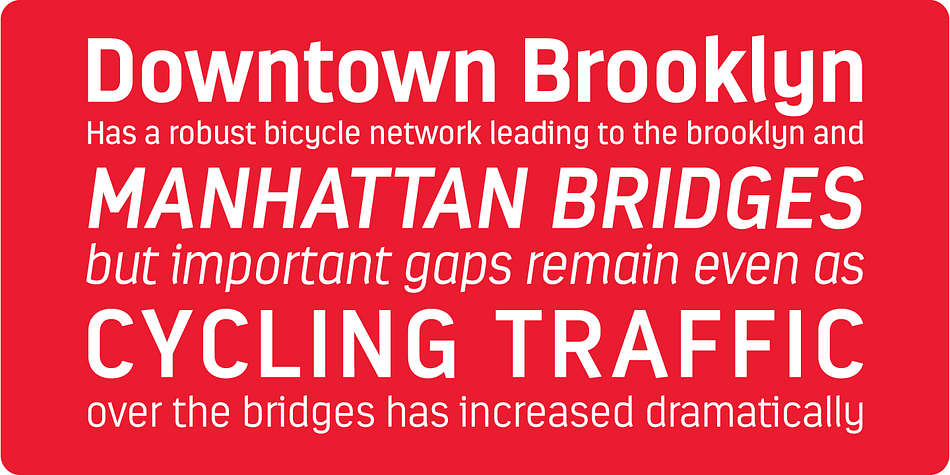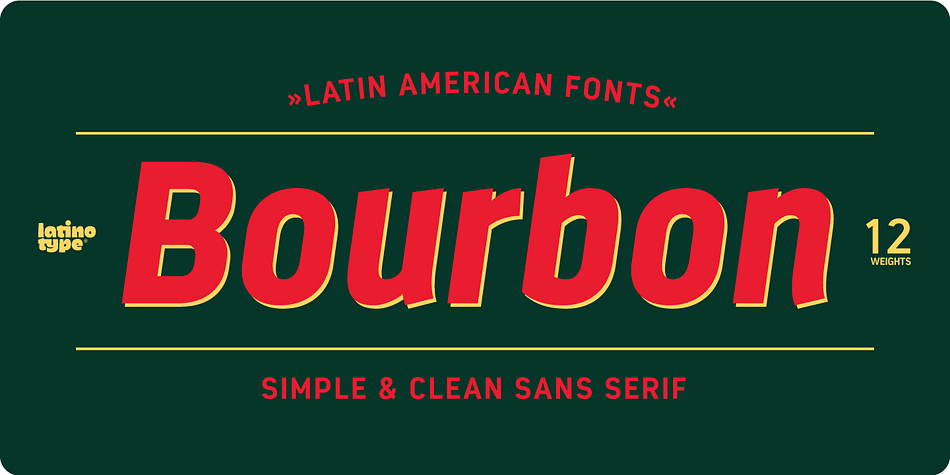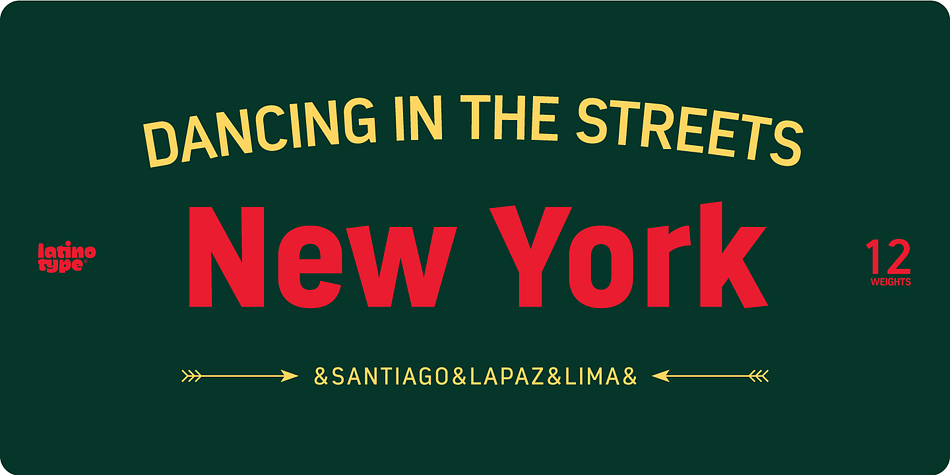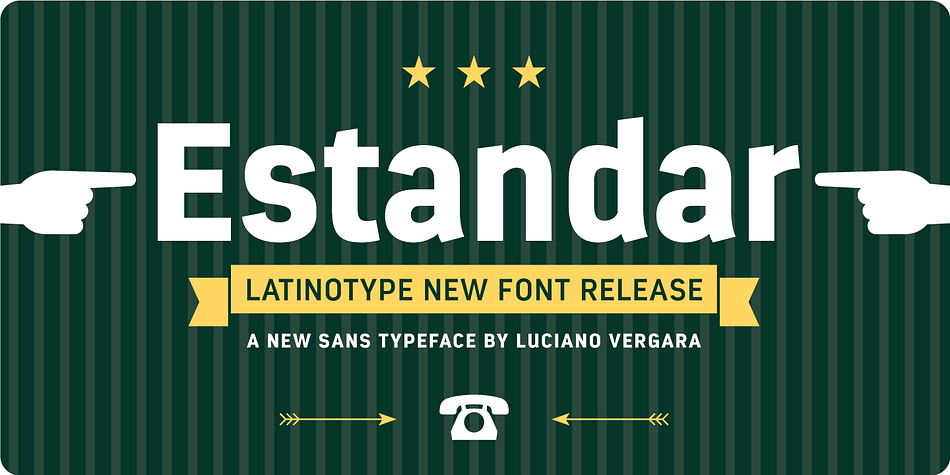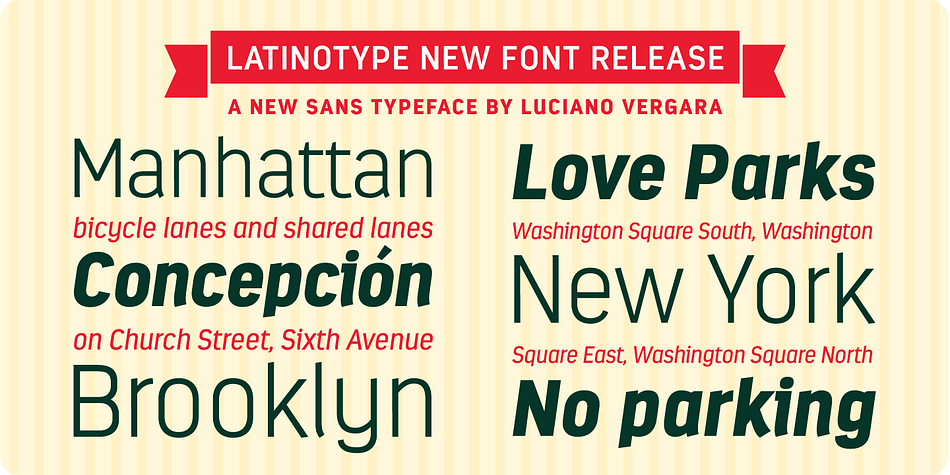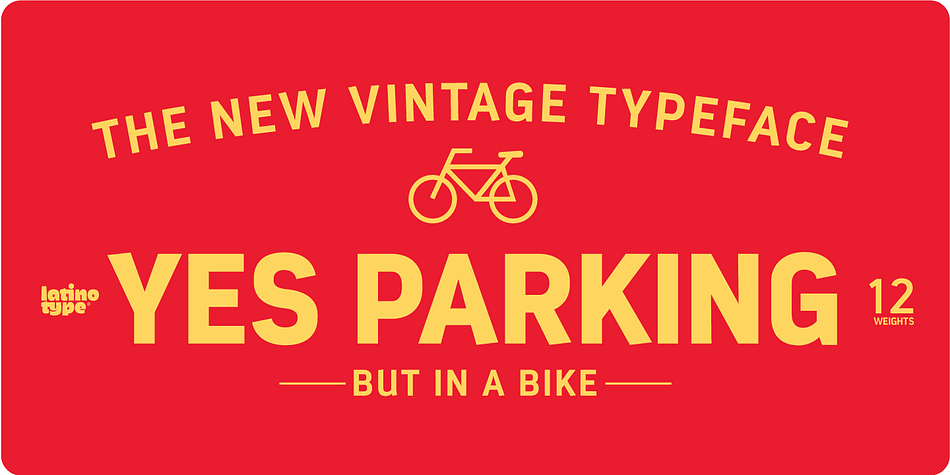
Estandar is a dingbat and sans serif font family. This typeface has thirteen styles and was published by Latinotype.
Estandar is a retro and vintage wayfinding sans serif font, inspired by old signal in central park and Europe.